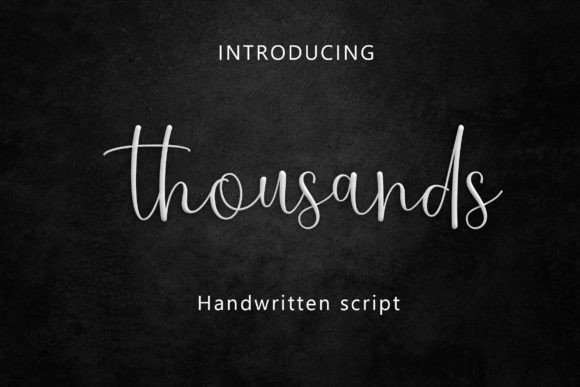
Behold Thousands Font, the script font family that's making waves in the design world. With its captivating masculine themes, this font exudes elegance and sophistication, perfect for expressing your boldest ideas.
Step into a world of creativity with Thousands Font, where your words take on a life of their own. Imagine your Christmas cards adorned with this exquisite font, carrying heartfelt messages to your loved ones. Its graceful curves and distinct strokes add a touch of charm that will leave a lasting impression.
Thousands Font isn't just a font; it's an experience. Its versatility knows no bounds, allowing you to create stunning logotypes, eye-catching brands, and captivating packaging designs. Whether you're crafting inspiring quotes, designing music posters, or creating stylish t-shirts, this font will elevate your designs to new heights.
Unleash your creativity with Thousands Font and explore the endless possibilities. Its adaptability shines in cover books and custom designs, adding a touch of elegance and originality to your projects.
Don't settle for ordinary fonts. Embrace the extraordinary with Thousands Font. Its unique charm and timeless beauty will transform your designs into masterpieces.